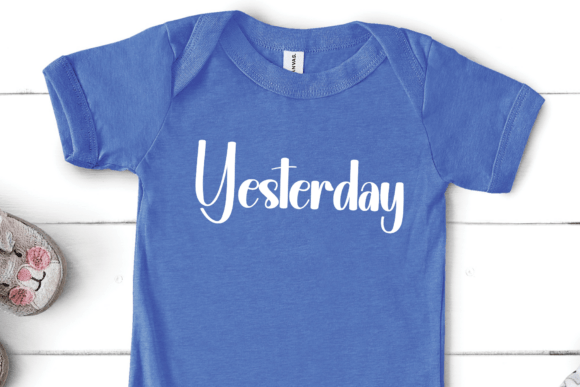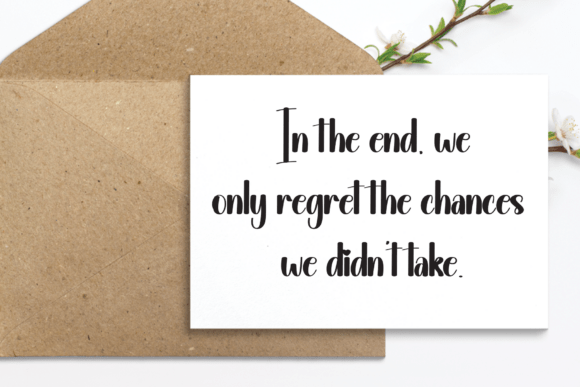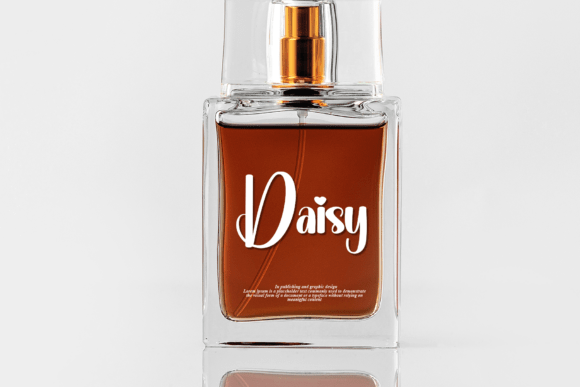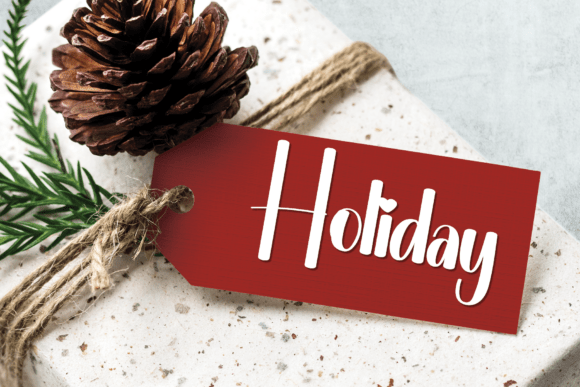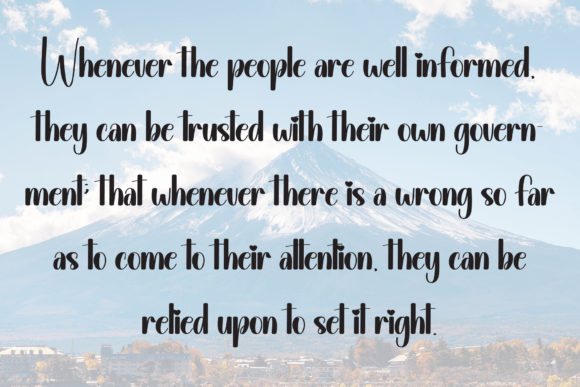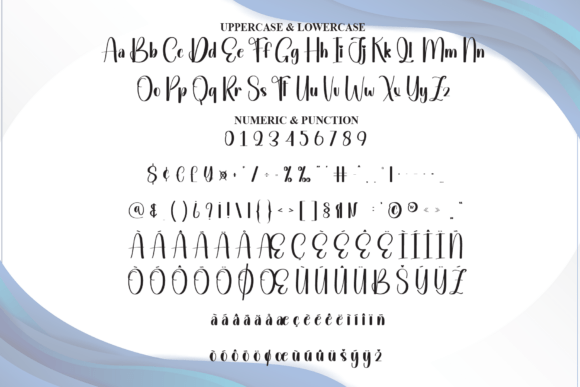
Introducing Background Font: The Perfect Blend of Warmth and Clarity
In the world of typography, fonts play a crucial role in conveying messages and setting the tone for a brand or design. With numerous font options available, finding the perfect one that balances warmth and clarity can be a daunting task. However, if you’re looking for a font that can bring a touch of approachability and genuineness to your projects, look no further than Background Font.
What is Background Font?
Background Font is a casual and neat display font designed to bring warmth and clarity to your projects. With its clean structure and approachable style, it suits branding, headlines, and everyday designs. The balanced letterforms offer readability and charm, making every message feel genuine and inviting.
Key Features of Background Font
- Clean Structure: Background Font boasts a clean and organized structure that makes it easy to read and understand. The font’s simplicity ensures that your message is conveyed clearly, without any distractions.
- Approachable Style: The font’s approachable style makes it perfect for designs that require a friendly and inviting tone. Whether you’re working on a branding project or creating everyday designs, Background Font helps you connect with your audience.
- Balanced Letterforms: The font’s balanced letterforms are designed to provide excellent readability and charm. Each letter is carefully crafted to ensure that your message is conveyed with clarity and style.
- Versatility: Background Font is a versatile font that can be used for a wide range of design projects, including branding, headlines, posters, and more.
Why Choose Background Font?
With so many fonts available, why choose Background Font? Here are a few reasons why designers and crafters love this font:
- Warmth and Clarity: Background Font brings a unique blend of warmth and clarity to your designs, making it perfect for projects that require a friendly and approachable tone.
- Readability: The font’s balanced letterforms and clean structure ensure excellent readability, making it easy for your audience to understand your message.
- Charm: Background Font has a charming quality that makes every message feel genuine and inviting. This font helps you connect with your audience and create a lasting impression.
Design Applications of Background Font
Background Font is a versatile font that can be used in various design applications, including:
- Branding: Use Background Font to create a friendly and approachable brand identity that resonates with your audience.
- Headlines: The font’s clean structure and balanced letterforms make it perfect for headlines that require clarity and style.
- Posters: Background Font is ideal for posters that need a friendly and inviting tone, making it perfect for promoting events, products, or services.
- Everyday Designs: The font’s approachable style makes it suitable for everyday designs, such as social media graphics, flyers, and more.
In conclusion, Background Font is a unique and versatile font that brings warmth and clarity to your designs. With its clean structure, approachable style, and balanced letterforms, it’s perfect for designers and crafters looking for a font that can convey a friendly and inviting tone. Whether you’re working on branding, headlines, or everyday designs, Background Font is an excellent choice that can help you connect with your audience and create a lasting impression.